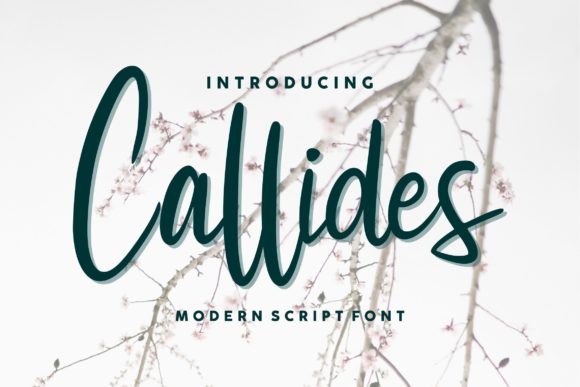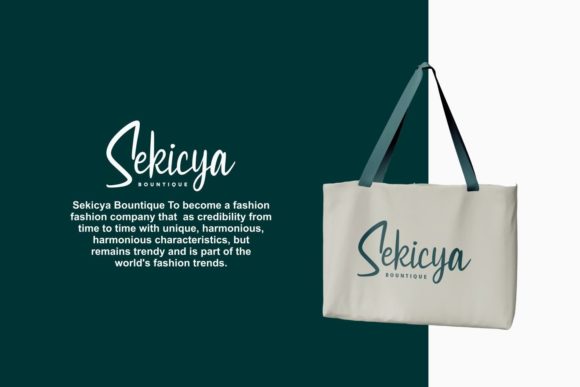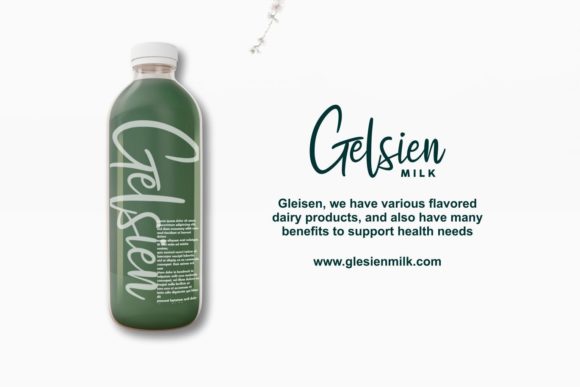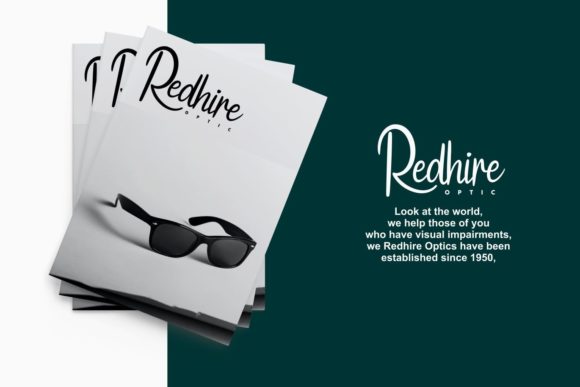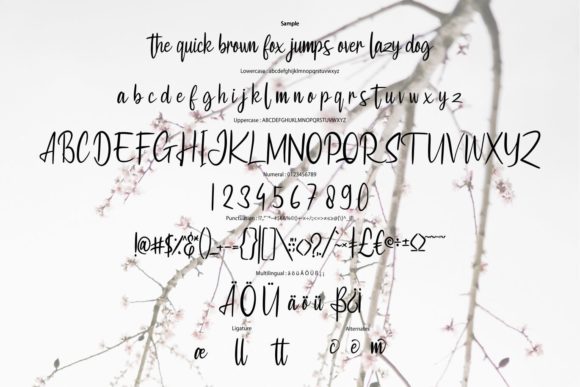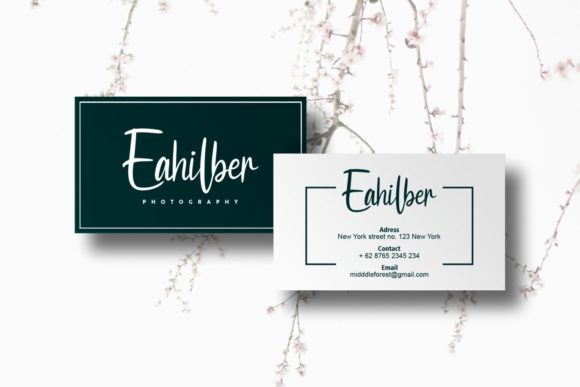
Callides Script Font
About Callides Script Font
Callides Script is a romantic and sweet calligraphy typeface with characters that dance along the baseline. It will add a luxury spark to any design project that you wish to create!